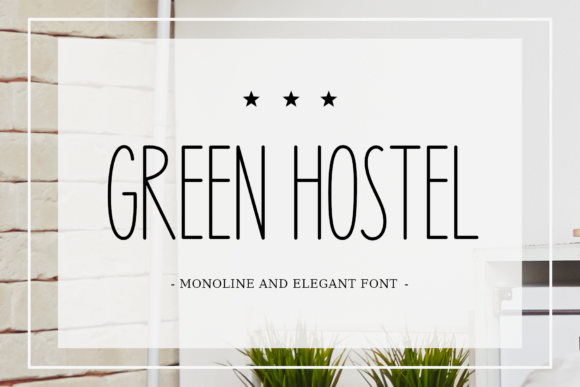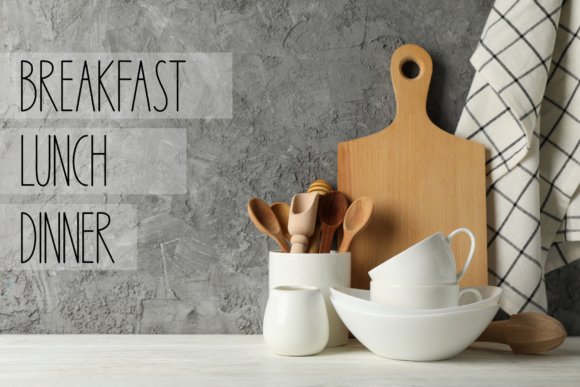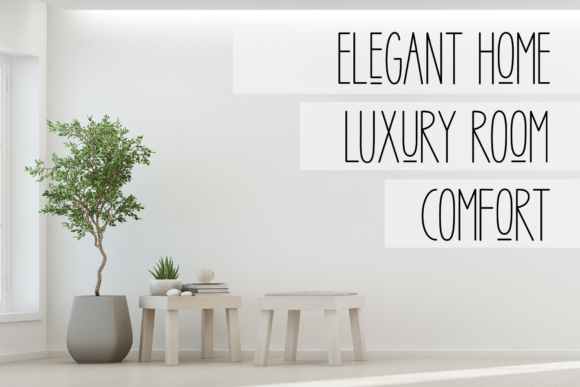
Green Hostel Font
About the Green Hostel Font
Crafted with precision, the Green Hostel Font is ready to bring your ideas to life. Green Hostel is a thin and clean sans serif font. It can easily be matched to an incredibly large set of projects, so add it to your creative ideas and notice how it makes them stand out!
Green Hostel’s thin strokes and clean lines make it ideal for headlines, short text blocks on posters, and branding elements like logos or website headers where readability at larger sizes is key. Its minimalist nature also lends itself well to packaging design for products emphasizing a clean, modern aesthetic. However, its thin weight makes it unsuitable for body text or long paragraphs, especially at smaller sizes. Avoid using it for UI elements or situations requiring high legibility in smaller point sizes.
Pairing Green Hostel effectively depends on the desired effect. For a modern, sophisticated feel, consider pairing it with a geometric sans-serif like Futura or a clean serif like Garamond. To add a touch of playfulness, a rounded sans-serif like Lato or a casual script font could be used for secondary text. Avoid pairing it with overly ornate or heavily textured fonts, which would clash with its minimalist nature.
Green Hostel projects an overall feeling of clean, modern simplicity. Its friendly yet understated personality suits brands and projects seeking a sophisticated yet approachable image. Think minimalist design, travel brands, technology companies, or any context requiring a touch of elegance without sacrificing clarity.